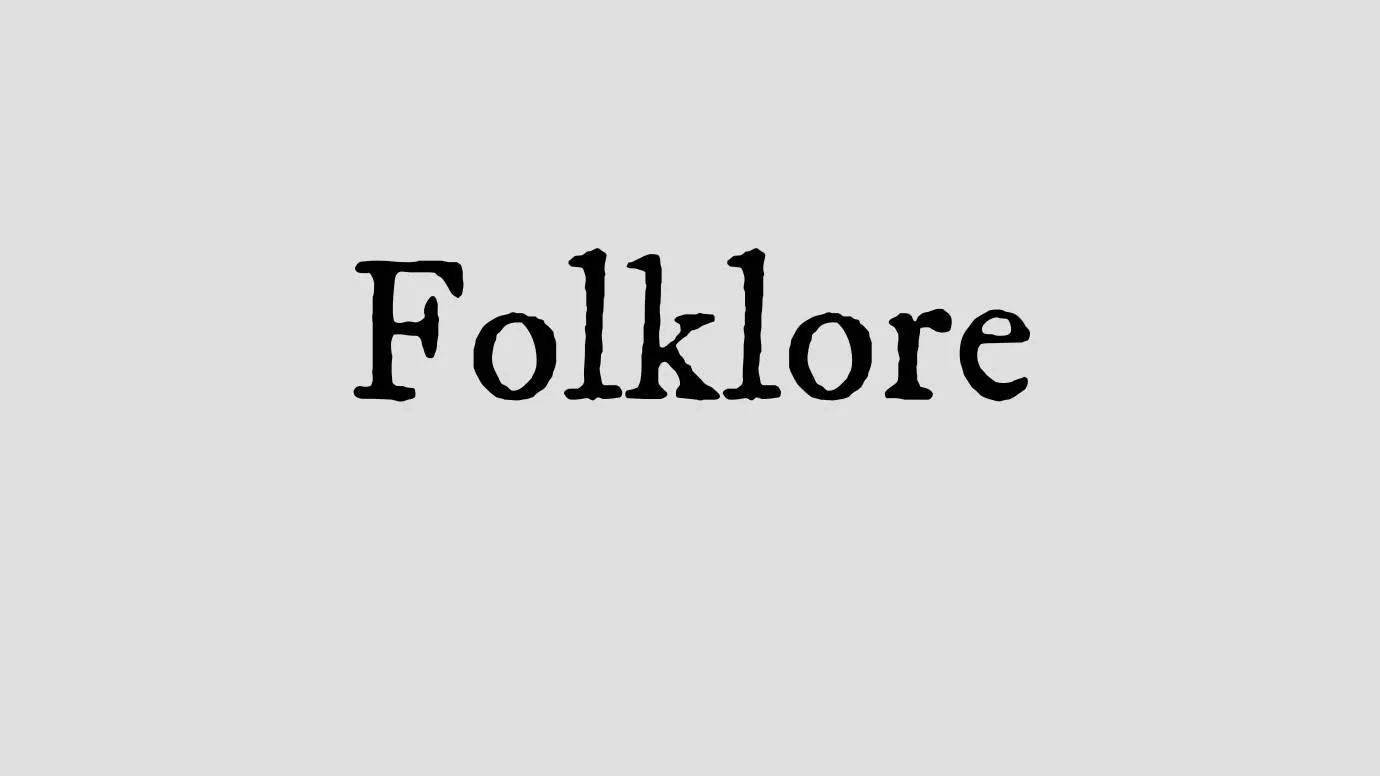
Folklore Font Family comes in the category of fancy eroded typeface and it has an irregular and dismantled structure. Igino Marini is the main and original manufacturer of this classic typography.
Folklore Font Family